When designing for different languages, typography is more than just picking a pretty font; it’s also about getting your message across clearly. Vietnamese has a lot of diacritical marks, so it needs fonts that can accurately show each character. Using fonts that support Vietnamese not only makes things clearer, but it also shows respect for the language’s unique structure.
In this article, we talk about how important it is to choose the right fonts for Vietnamese and show you some great choices that will make your designs look good and sound right.
Why Should We Use Fonts That Support the Vietnamese Language in Design?
There are many reasons why you need to use fonts that support the Vietnamese language:
1. Accurate Representation of Characters
Vietnamese is a complicated language with special diacritical marks that can change the meaning of words in big ways. If a font doesn’t support these marks, it can cause the wrong characters to show up, which can lead to misinterpretation. For example, depending on the diacritics used, the word “chao” can mean “hi,” “porridge,” or “a pan.” Fonts that are properly supported make sure that each word is shown correctly, which keeps the meaning.
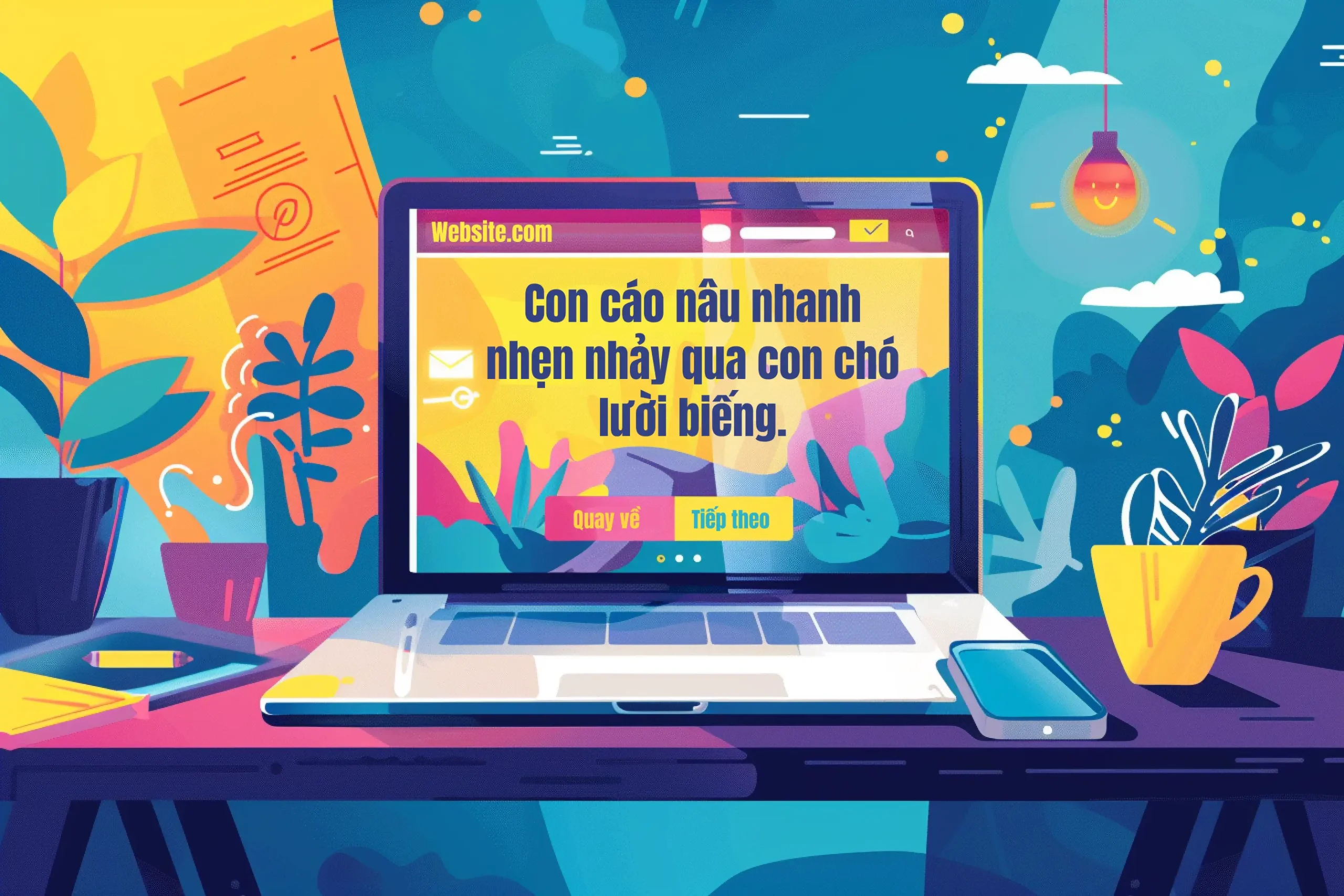
2. Enhanced Readability
Readability is very important in design, especially when it comes to text. Native speakers can easily read all of the text if the fonts support Vietnamese characters. When characters don’t show up right, it can be hard to understand what you’re saying and make the communication less effective overall. Fonts that are well-supported keep the text’s integrity, making it easier for the audience to read and understand.
3. Professionalism and Credibility
Using the right fonts that work with Vietnamese shows that you are professional and pay attention to detail. It shows that the designer cares about the language and the audience, which makes the work more credible. On the other hand, using fonts that don’t support the language can make the designer look careless and unprofessional, which could hurt their reputation.
4. Improved User Experience
One of the main goals of design is to make the user experience as smooth as possible. Fonts that support Vietnamese characters make it easier and more enjoyable for users to read. When text is clear and accurate, it makes it easier for users to understand and engage with the content.
5. Versatility in Design
Using fonts that support Vietnamese gives you more options for design. Designers can confidently make all kinds of content, like websites, mobile apps, printed materials, and ads, because they know that their text will look right. Brands and businesses that want to reach Vietnamese-speaking markets need this kind of flexibility.
6. Compliance with Language Standards
Using fonts that support Vietnamese gives you more options for design. Designers can confidently make all kinds of content, like websites, mobile apps, printed materials, and ads, because they know that their text will look right. Brands and businesses that want to reach Vietnamese-speaking markets need this kind of flexibility.
Fonts That Support the Vietnamese Language in Design
When designing for Vietnamese people, it’s very important to choose the right font. Here are some great fonts that not only support Vietnamese characters but also make your design look better overall. Each font has its own look and function, which makes it good for different types of design work.
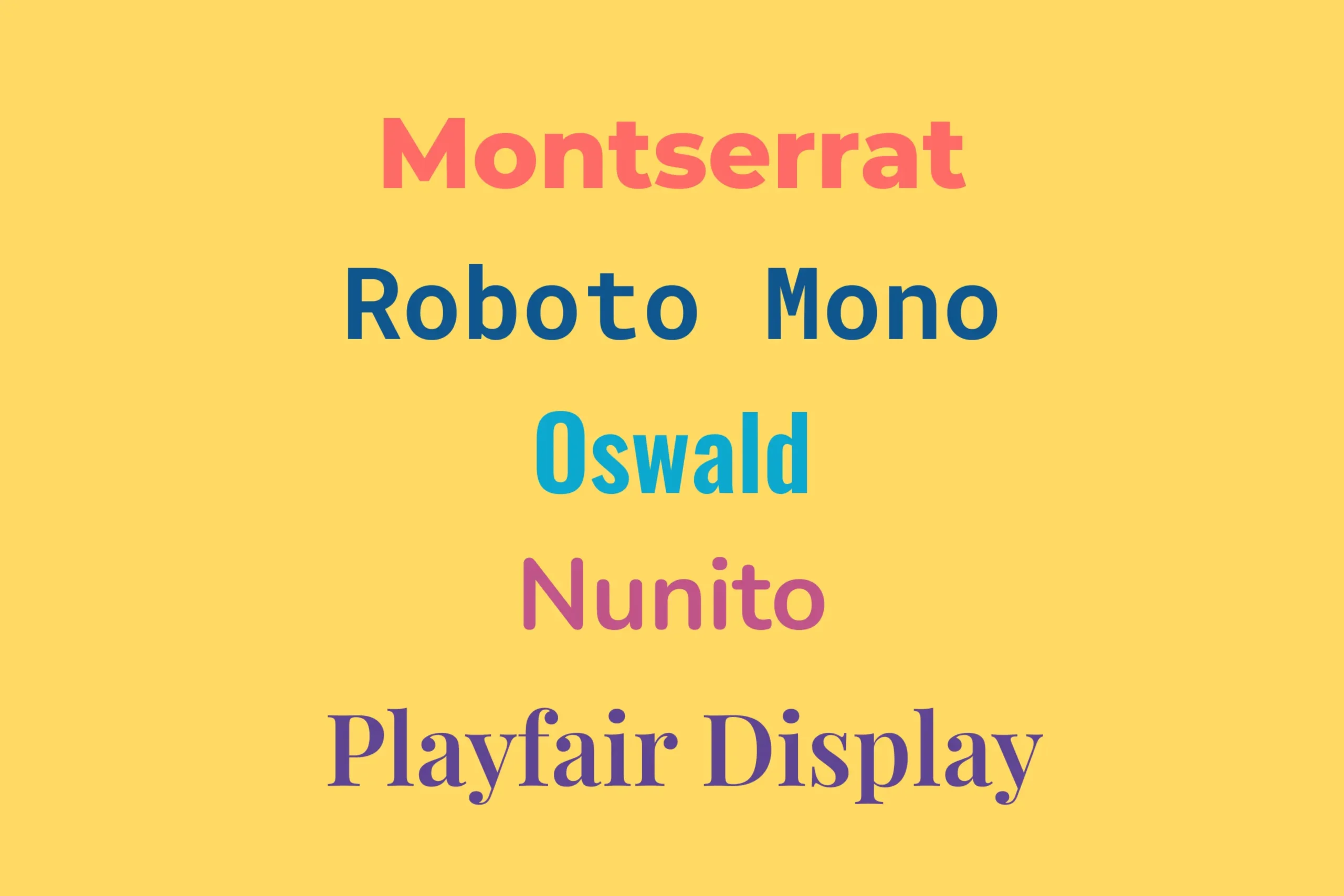
1. Montserrat
Montserrat is a modern sans-serif font that was inspired by the way people write in the Montserrat neighbourhood of Buenos Aires. It has great support for Vietnamese characters, which makes it easy to read and look good. It comes in a lot of different weights and styles, so it’s great for both headlines and body text. Montserrat is a popular font for web design, branding, and editorial layouts because it looks clean and professional.
2. Roboto Mono
Roboto Mono is a typeface with a single space that is part of the Roboto family. It has a simple and clean design that makes it great for coding, technical documents, and any project that needs a font with a fixed width. Roboto Mono can read Vietnamese characters, so your digital and technical projects will look good and work well.
3. Oswald
Oswald is a modern version of the classic gothic typeface style. It works with Vietnamese letters and is often used for strong statements and bold headlines. Its compact design lets you fit more text into less space without making it harder to read. Oswald is great for ads, posters, and any other design that needs strong, eye-catching text.
4. Nunito
Nunito is a sans-serif font with rounded terminals that makes it look friendly and approachable. It can handle Vietnamese characters, so it can be used for a lot of things, like websites and printed materials. Nunito is a great font for body text and headings in educational materials, blogs, and business communications because it is easy to read and has a warm feel.
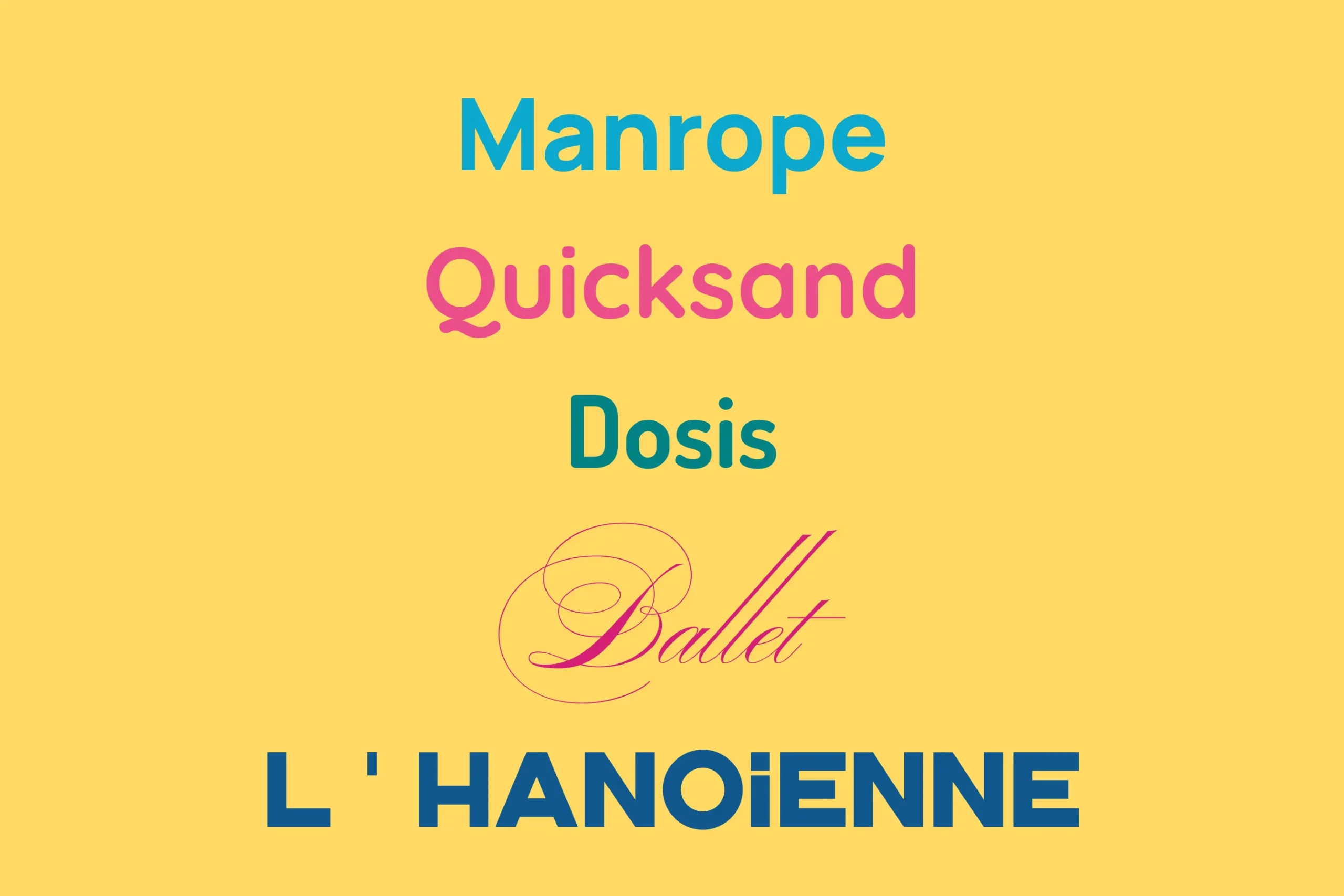
5. Playfair Display
Playfair Display is a serif font that looks classy and sophisticated. It has Vietnamese characters and is great for editorial design, titles, and any project that needs a little bit of classic style. Playfair Display’s high contrast and unique style make it great for book titles, magazine covers, and high-end branding.
6. Manrope
Manrope is a modern, geometric sans-serif font that was made to be simple and elegant. It works with many languages, including Vietnamese, so it’s a good choice for a lot of different design projects. Manrope is great for user interfaces, corporate branding, and simple designs where clarity and simplicity are very important.
7. Quicksand
Quicksand is a rounded, sans-serif font that is meant to be used for display. It works with Vietnamese characters and is great for design projects that are friendly and easy to understand. Its fun and modern look makes it great for kids’ books, product packaging, and creative websites. It looks professional but still fun.
8. Dosis
Dosis is a simple, rounded, sans-serif font that can show Vietnamese characters. It is often used for simple and modern designs because it gives things a clean, simple look. Dosis is great for tech startups, infographics, and digital content that needs to be clear and up-to-date.
9. Ballet
Ballet is a stylish and elegant font that works with Vietnamese characters. Its elegant curves and smart look make it great for artistic and creative projects. Ballet is great for fashion branding, invitations, and any design that wants to make people feel elegant and beautiful.
L’Hanoienne Free Typeface is made to work with many languages, including Vietnamese. This typeface was made by designer Manh Nguyen and is a great choice for designers who want to add real Vietnamese elements to their work. It mixes traditional Vietnamese styles with modern typographic rules, so it can be used for cultural projects, heritage branding, and artistic designs.
Choosing the right font for Vietnamese language design is important for making things easy to read, look good, and be culturally sensitive. The fonts above are great for Vietnamese characters, so your designs will look great and work well. These fonts will help you get your point across to Vietnamese speakers, whether you’re working on a modern website, an elegant editorial, or a creative project.